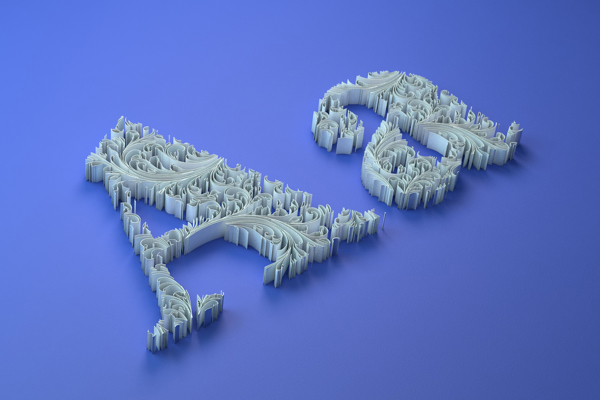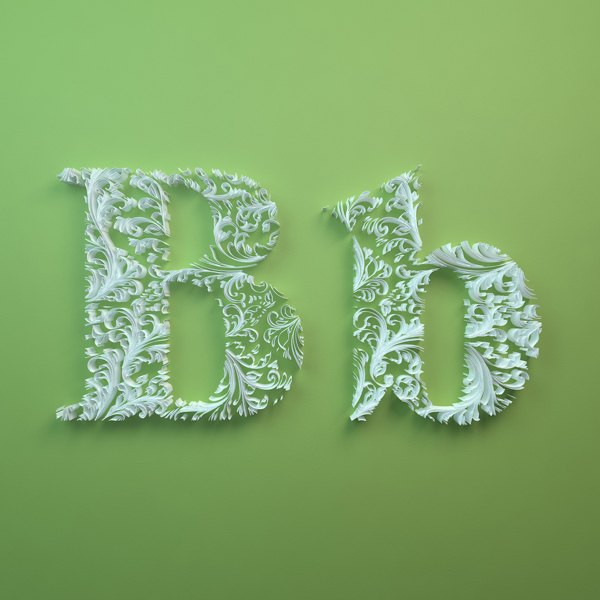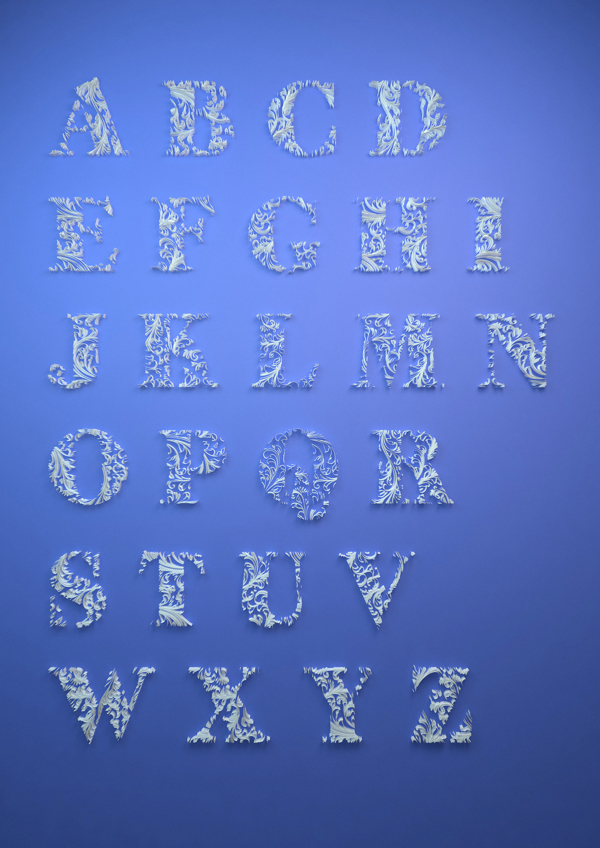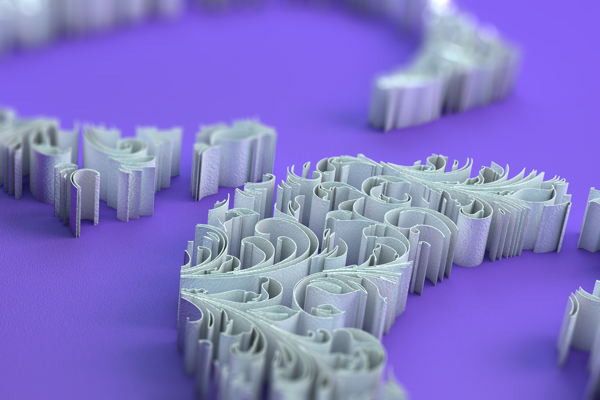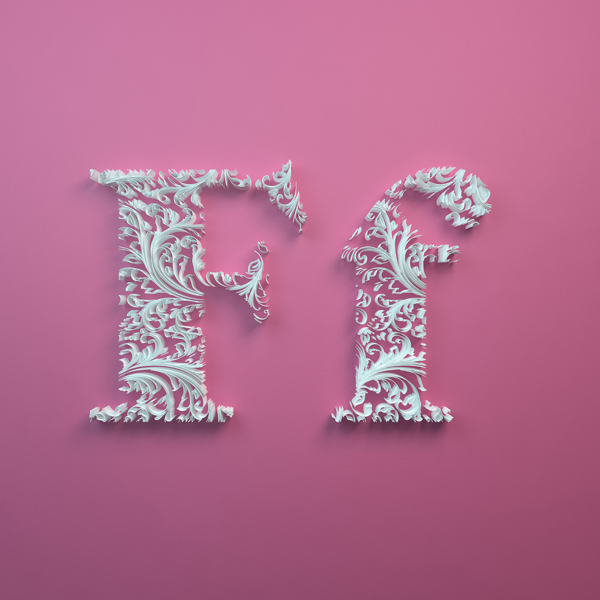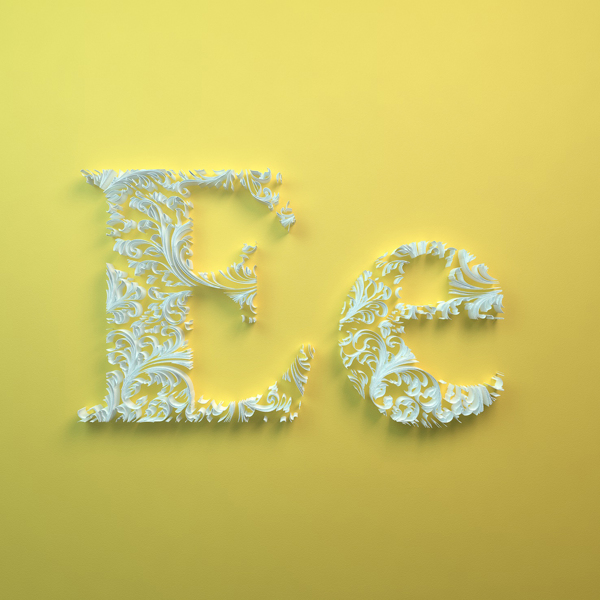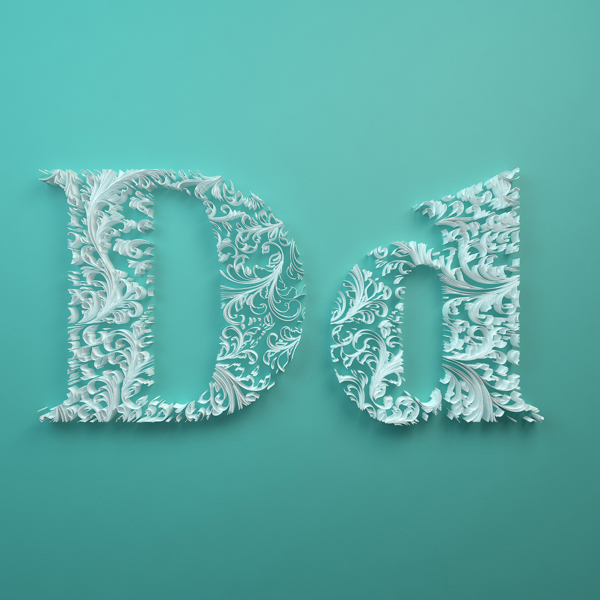
Paper Mastery by Dan Hoopert
A 19 year old boy, named Dan Hoopert, shows strong interest in typography, especially in the handmade lettering using paper crafts. A gorgeous typeface has been designed by Dan, for personal usage and exploration, with flourish details carefully structured on paper and one-colour background. The result is naive, delicate, with a god that's into details and it seems that Hoopert has devoted much time and effort for those creations. We will sure keep an eye on him.